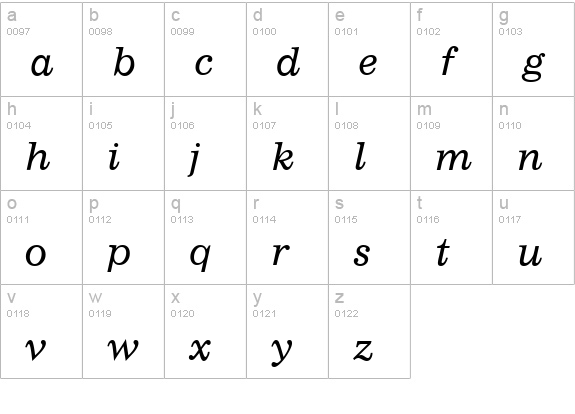
I770-Roman-Italic Font Details
I770-Roman-Italic is a distinctive, italic variant in the I770 typeface family \xE2\x80\x94 well suited to design and typography projects.